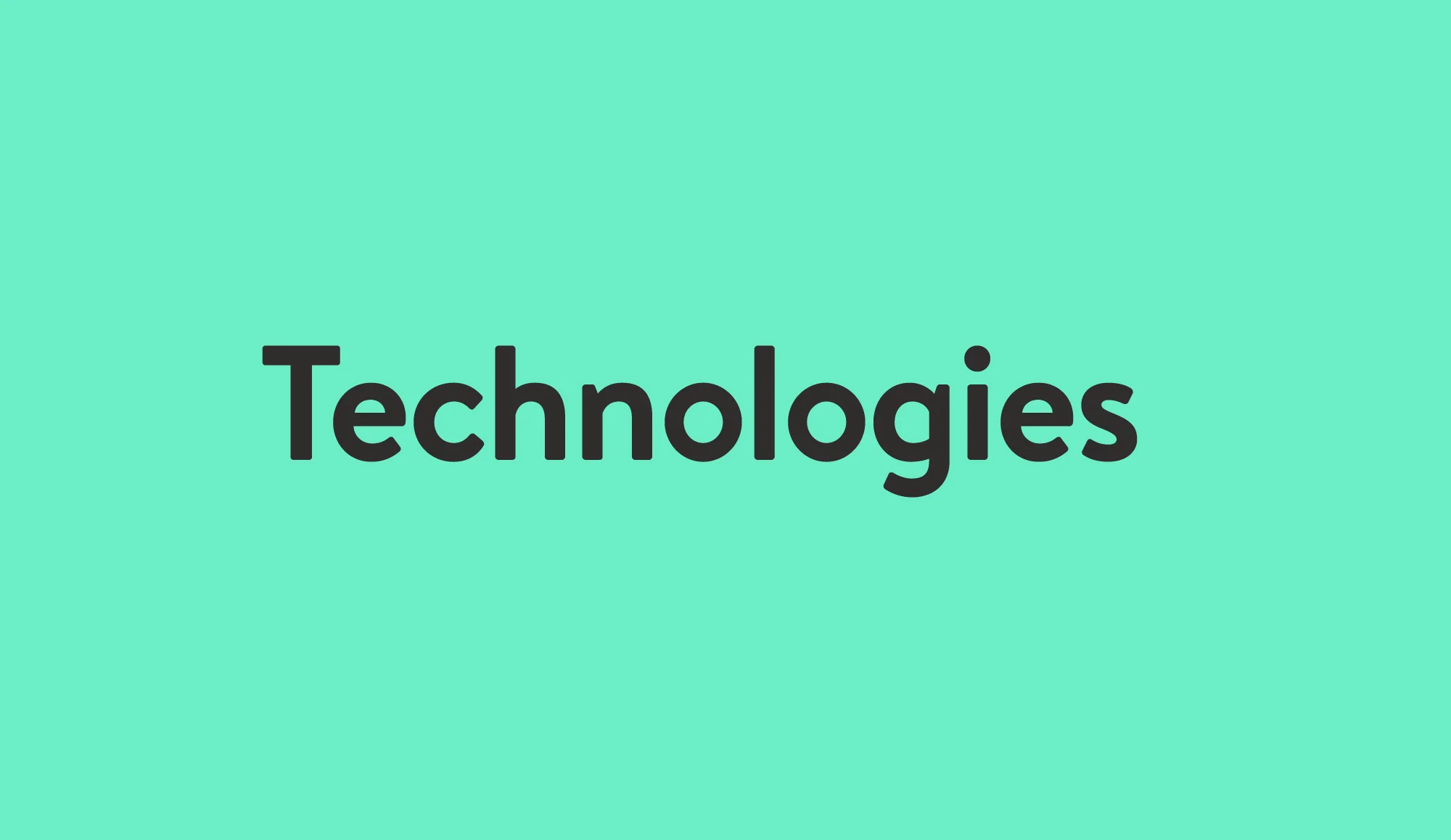
Brandon Text
HvD Fonts · Hannes von Döhren · 2013
A text-optimised geometric sans designed as a companion to Brandon Grotesque, with wider apertures suited to body copy at smaller sizes.
Designed by Hannes von Döhren, Brandon Text adapts the geometric structure of Brandon Grotesque for sustained reading use. Wider apertures, adjusted letter spacing and refined proportions make it more comfortable at text sizes than its display counterpart. The family covers six weights from Thin to Black, each with a matching italic.
Brandon Text is a geometric sans-serif in the tradition of Futura and Gill Sans, designed as a text-optimised companion to Brandon Grotesque with wider apertures and adjusted proportions for smaller sizes.